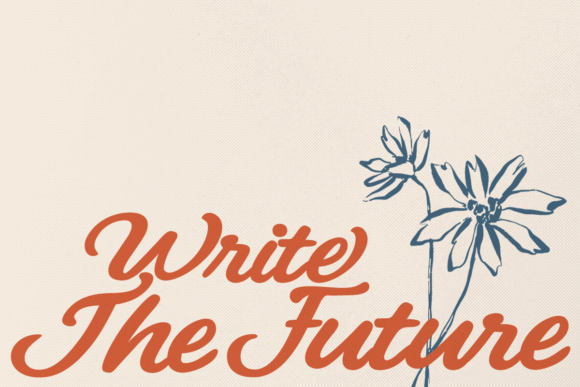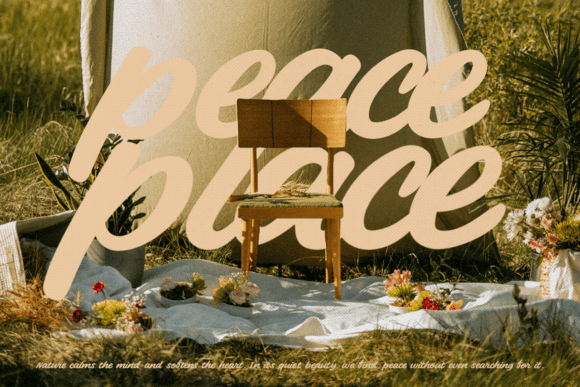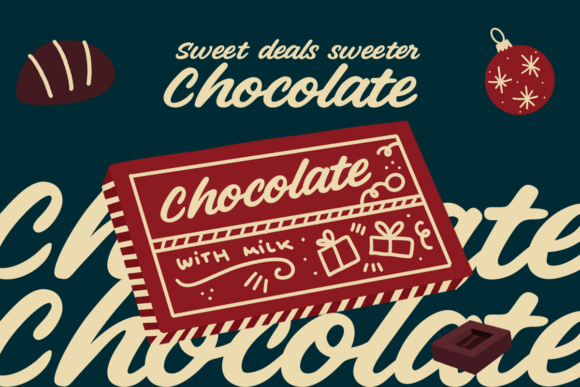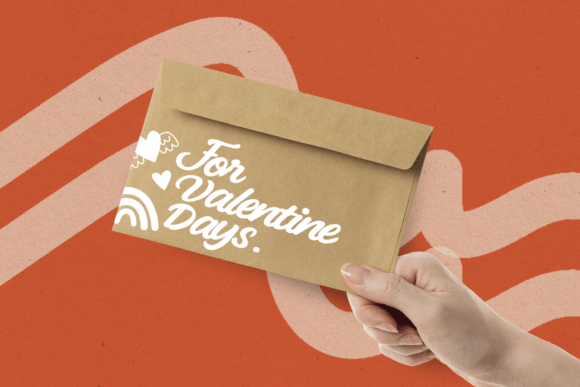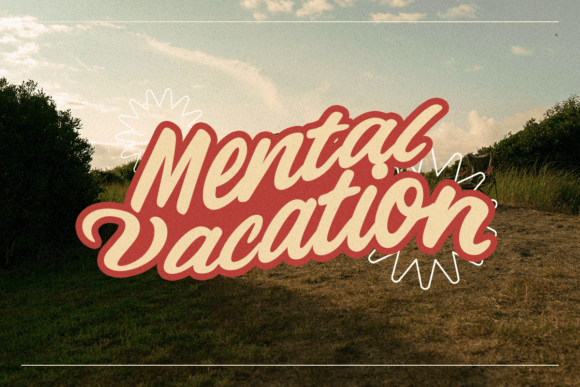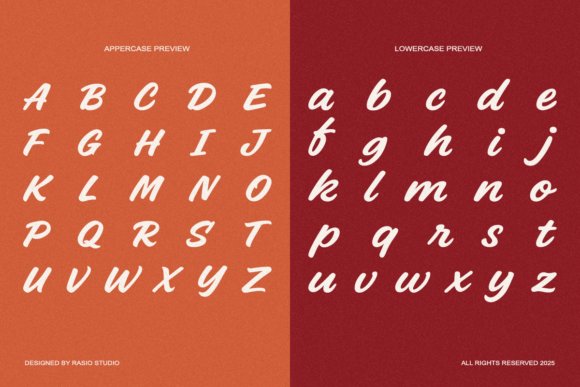
Introduction to Fionelle Font
Have you ever stumbled upon a beautiful handwritten note in a vintage journal, and felt inspired to create something equally stunning? That’s the magic of Fionelle Font, a modern elegance script font that’s sure to transport your designs to a world of sophistication and refinement.
For designers looking to add a touch of high-quality, handwritten flair to their creative projects, Fionelle Font is a valuable resource that’s hard to beat. Its smooth flowing strokes and refined curves make it an ideal choice for projects that require a level of elegance and sophistication, from wedding invitations to luxury product packaging.
Whether you’re working on a branding project, fashion editorial, or social media graphic, Fionelle Font’s versatility and expressive style make it an essential design tool that’s sure to elevate your work to new heights.
Key Features of Fionelle Font
- Unique characteristics: cursive, script, and handwritten styles, making it perfect for invitations, quotes, and other creative projects.
Honest Review: Fionelle Font
As a designer, I’m always on the lookout for high-quality design resources to elevate my creative projects. Recently, I had the chance to try out the Fionelle Font, and I must say, it’s been a great addition to my toolkit.
The font also features a transparent background, which makes it easy to overlay on different backgrounds and textures. This flexibility is a game-changer for designers who need to create complex and layered designs.
Pros and Cons
- ✨ High-quality design and clear typography
- ✨ Versatile and suitable for a wide range of creative projects
- ⚠️ Limited customization options
- ⚠️ Not suitable for very small text sizes
Fionelle Font
Fionelle Font is ideal for use in branding, logos, and marketing materials, as well as in digital designs such as social media graphics and presentations.